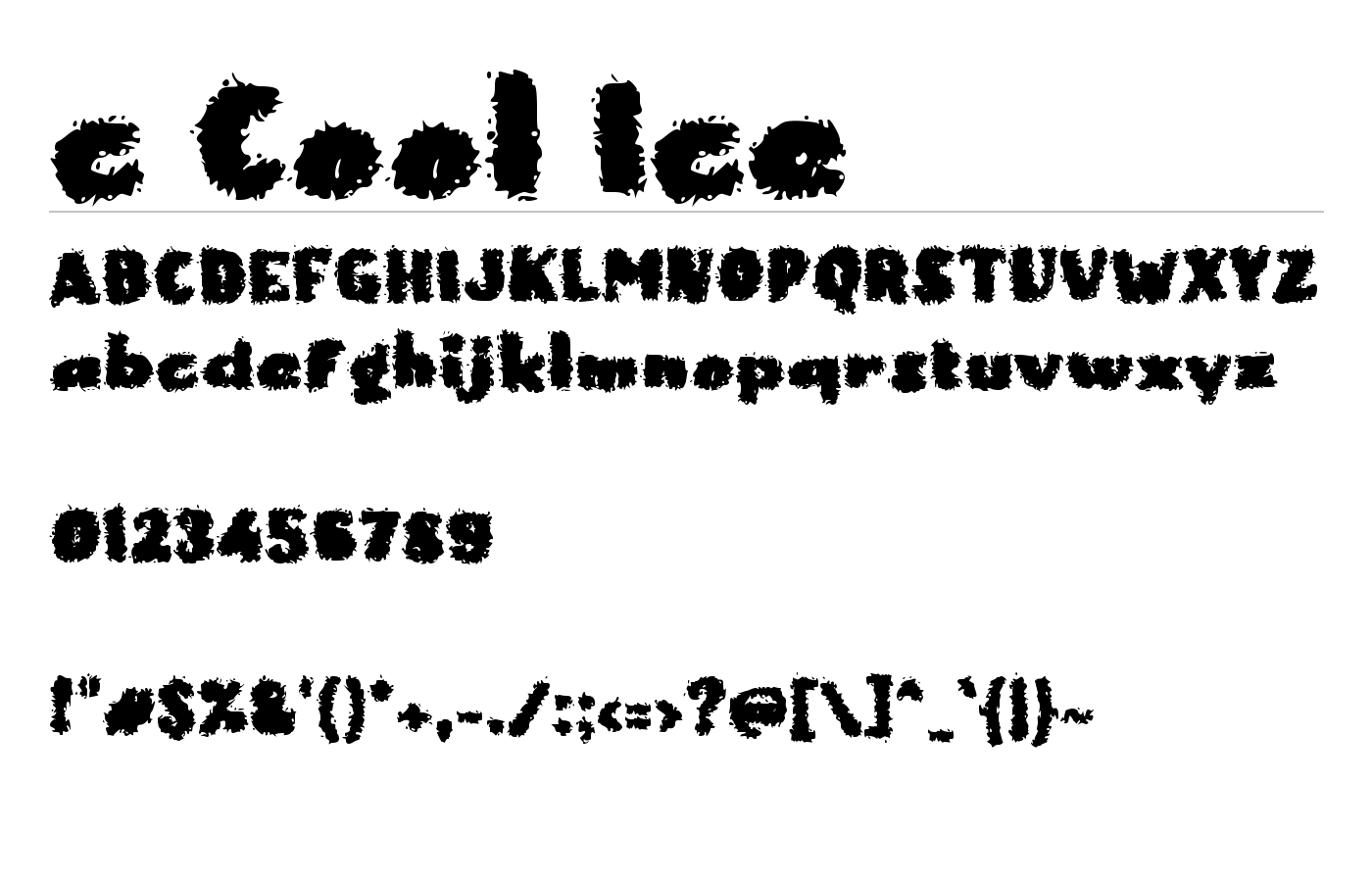
c Cool Ice is a bold, playful display font featuring heavily textured, irregular edges that give it a frosty, icy appearance. Its chunky, slightly condensed letterforms with rough, organic strokes make it perfect for striking headlines, themed posters, or branding with a cool, adventurous vibe. This font stands out best in large sizes where its unique, whimsical character can truly shine.
c Cool Ice Font